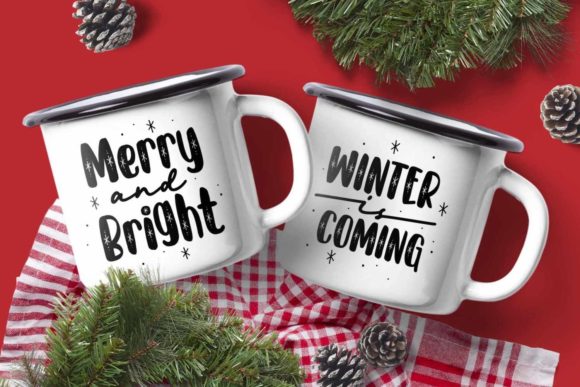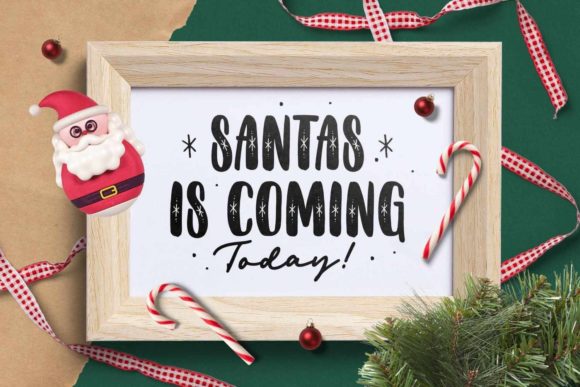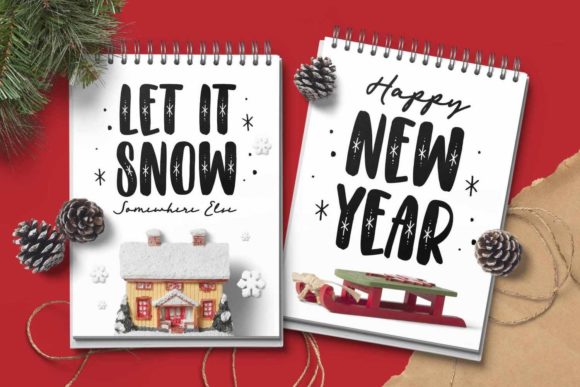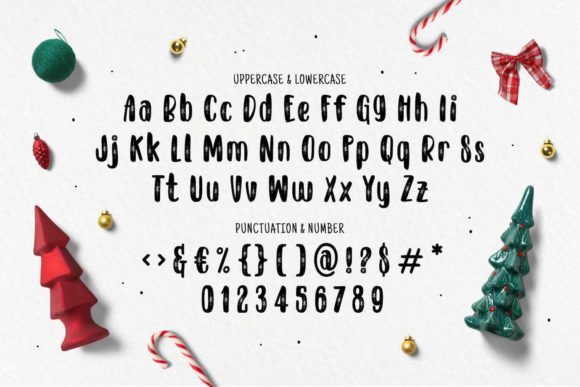
Introduction to Miracle Shine Font
As you’re browsing through design inspiration, have you ever stumbled upon a project that just makes you go “wow”? For many designers, it’s that perfect combination of style, creativity, and functionality that sets a project apart. For me, it’s the sparkle of a well-designed font that catches my eye. And speaking of sparkles, let’s talk about the Miracle Shine Font – a charming display font that’s perfect for adding a touch of magic to your winter decorations.
This beautiful font is ideal for a wide range of creative projects, from logos and branding to photography and invitations. Its transparent background and high-quality design make it a valuable resource for designers looking to add a professional touch to their work. And the best part? It’s available for free download, making it a must-have for any design enthusiast.
Honest Review: Miracle Shine Font
I recently had the chance to work with the Miracle Shine Font, and I must say it’s been a great addition to my design resource library. The font is a high-quality, free download that’s perfect for any creative project that requires a touch of elegance.
What works well: ✨ The font has a transparent background, which makes it easy to use with any design. It’s also highly customizable, allowing me to adjust the color and style to fit my needs. The font’s modern design makes it a great fit for a variety of creative projects, from logos to posters.
- Customizable
Limitations: ⚠️ While the font is overall a great resource, I did find that it’s not as extensive as some other fonts I’ve worked with. The font family is limited, which may not be ideal for projects that require multiple font styles.
Overall, I’m impressed with the Miracle Shine Font. It’s a great addition to any designer’s library, and its high-quality design makes it a great choice for creative projects. While it may have some limitations, it’s definitely worth checking out.
The Miracle Shine Font is a high-quality, free download design resource perfect for any creative project. With its transparent background, this font offers endless possibilities for designers.
For the best results, use the Miracle Shine Font on a high-quality design project, and take advantage of its transparent background to create visually appealing graphics.
The Miracle Shine Font is ideal for a variety of creative projects, including logos, brochures, social media graphics, and more.